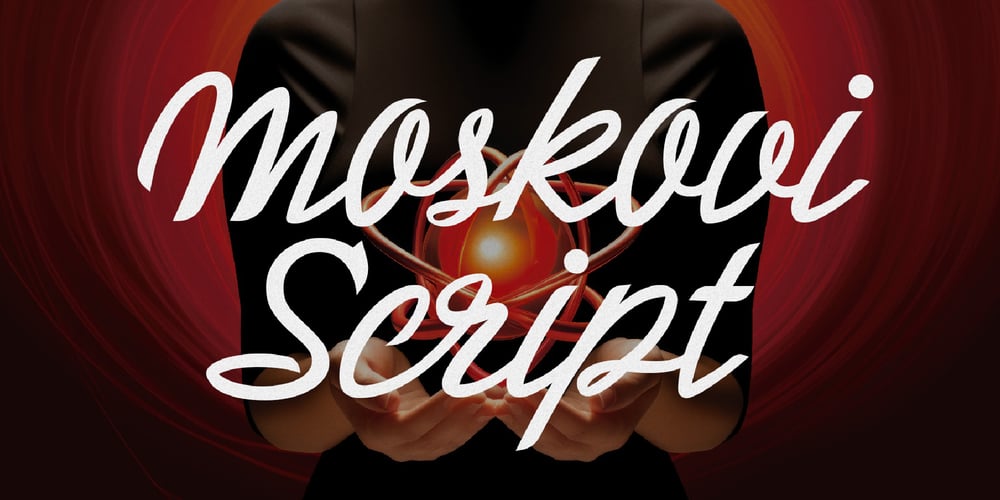
Moskovi Script Font Family was designed by Igor Ovsyannykov and published by Hipfonts. Moskovi Script contains 2 styles and family package options. Introducing MosKovi Script, an enchanting and audacious typeface that seamlessly melds the captivating essence of vintage Soviet design with modern-day allure. This font exudes an air of mystery, evoking the clandestine charm of the Cold War era while breathing new life into the world of typography.Each stroke reflects the precision and strength of Soviet engineering, transporting you to a time when secrets were whispered in dimly lit alleys, and espionage thrived beneath the iron curtain. MosKovi Script’s elegant curves and sharp edges intertwine like spies engaged in a delicate dance, daring you to uncover its hidden messages.Embark on a journey through history with MosKovi Script, a typographic marvel that captures the courage and resilience of a bygone era while captivating the hearts of modern design enthusiasts worldwide.